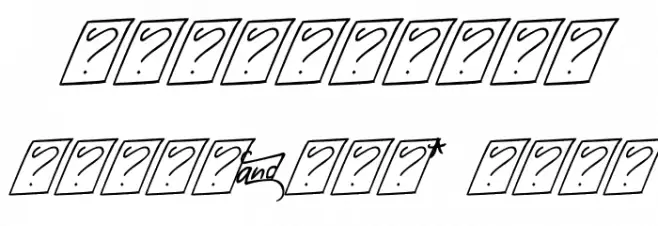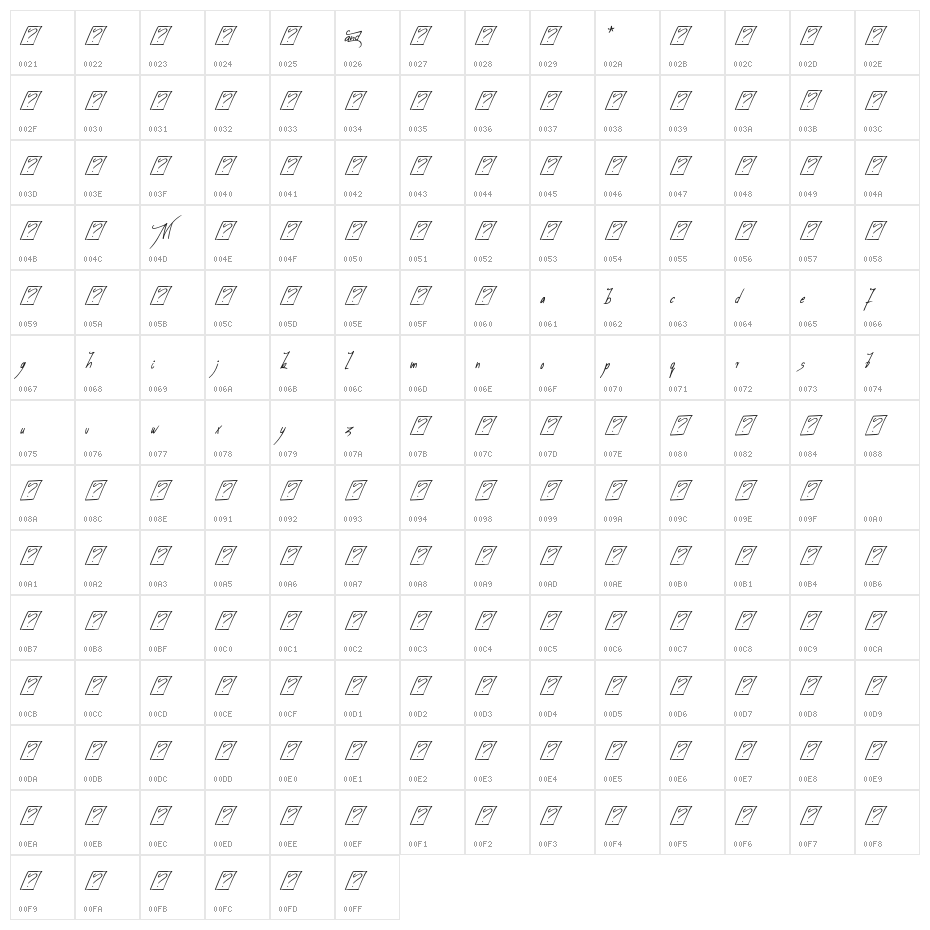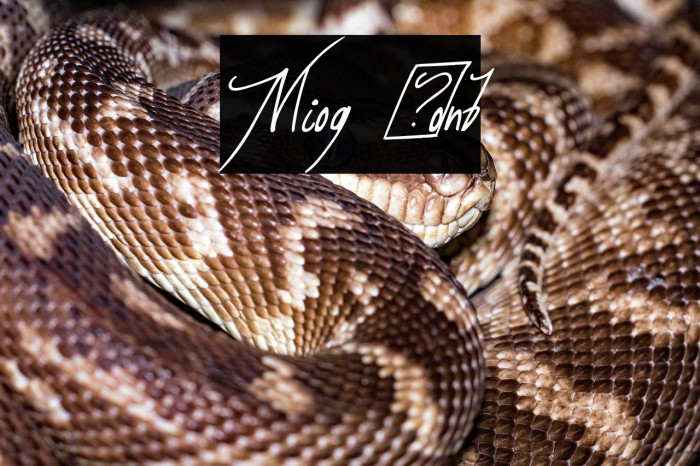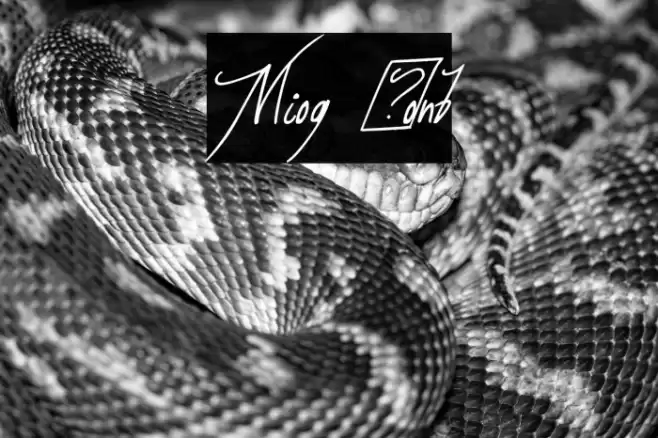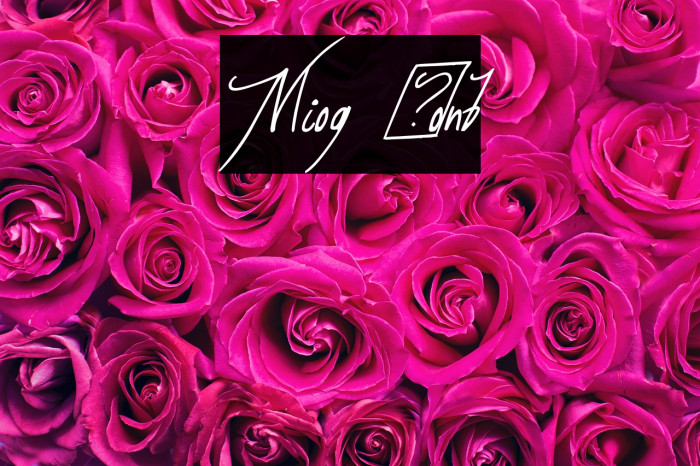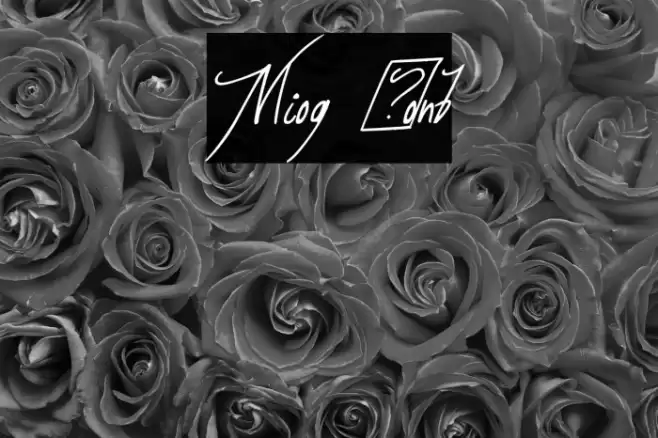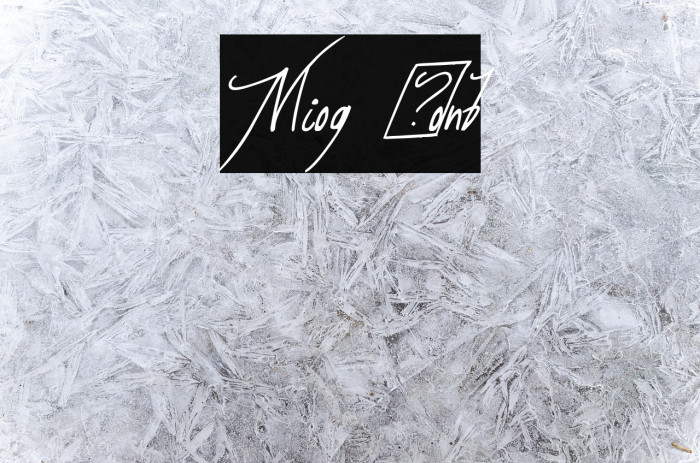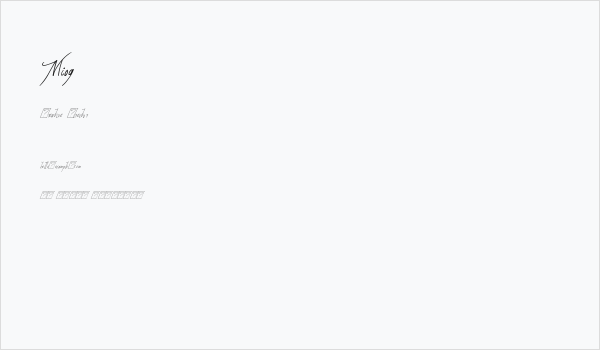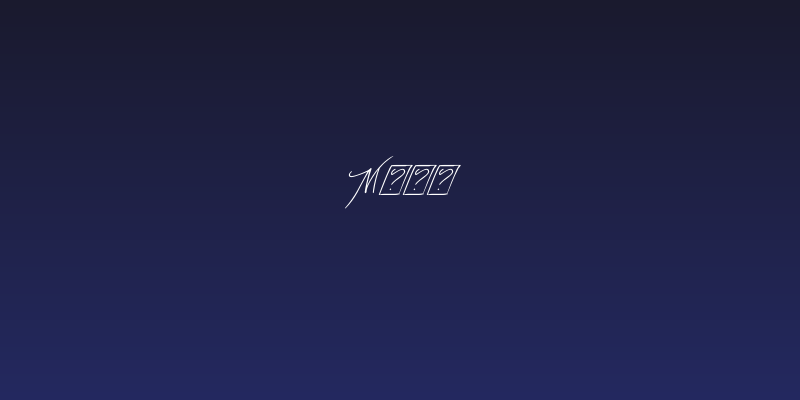
Miog Font
Miog Description
This font features an elegant and flowing script style, reminiscent of classic calligraphy. The strokes are smooth and slightly angular, giving it a refined and sophisticated appearance. The uppercase letters are particularly ornate, with intricate curves and flourishes that add a touch of elegance. The lowercase letters maintain a consistent style, with a slight slant that enhances the fluidity of the text. This font is ideal for projects that require a touch of class and sophistication, such as wedding invitations, formal event programs, or luxury branding. The overall appearance is both timeless and versatile, making it suitable for a variety of design applications.